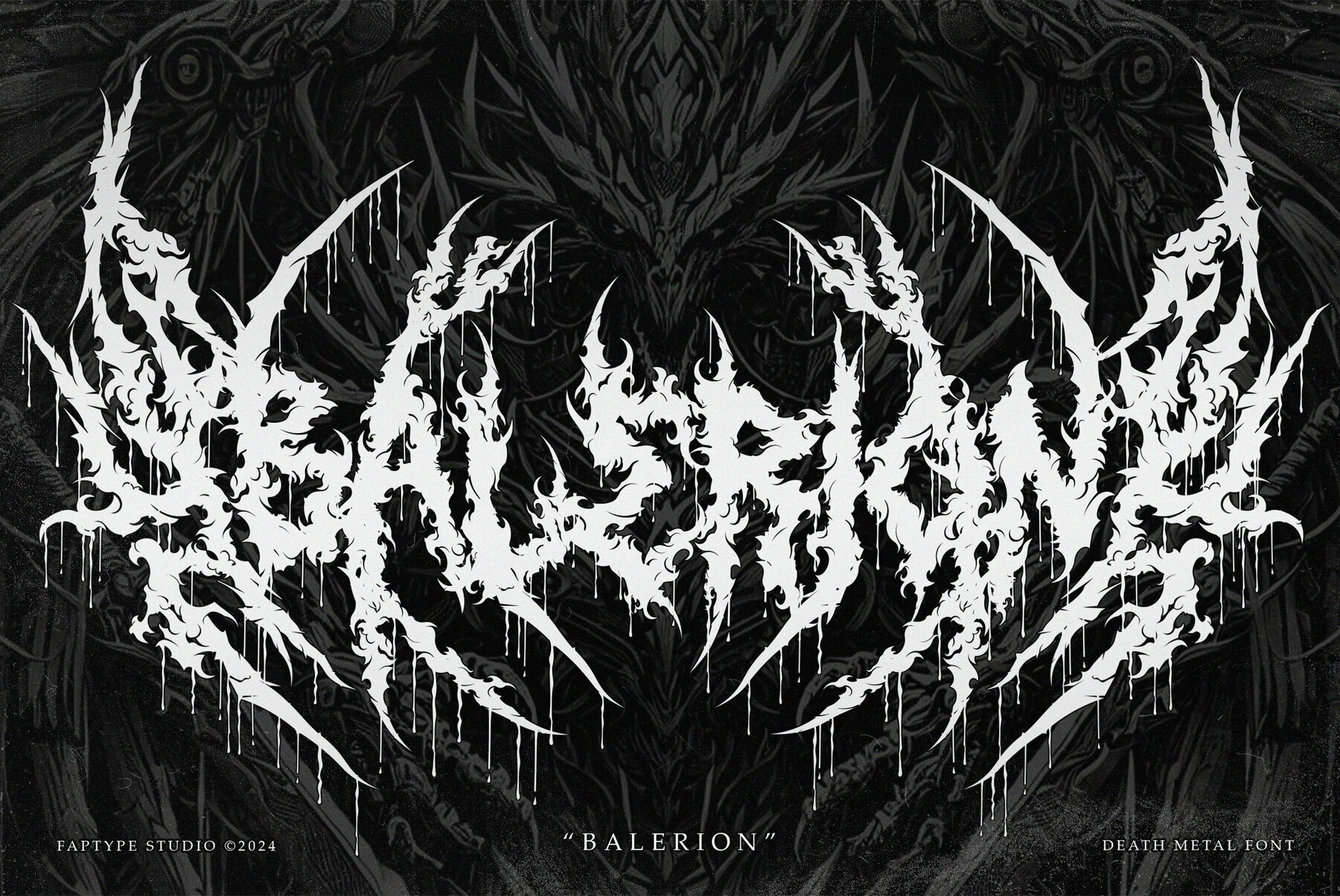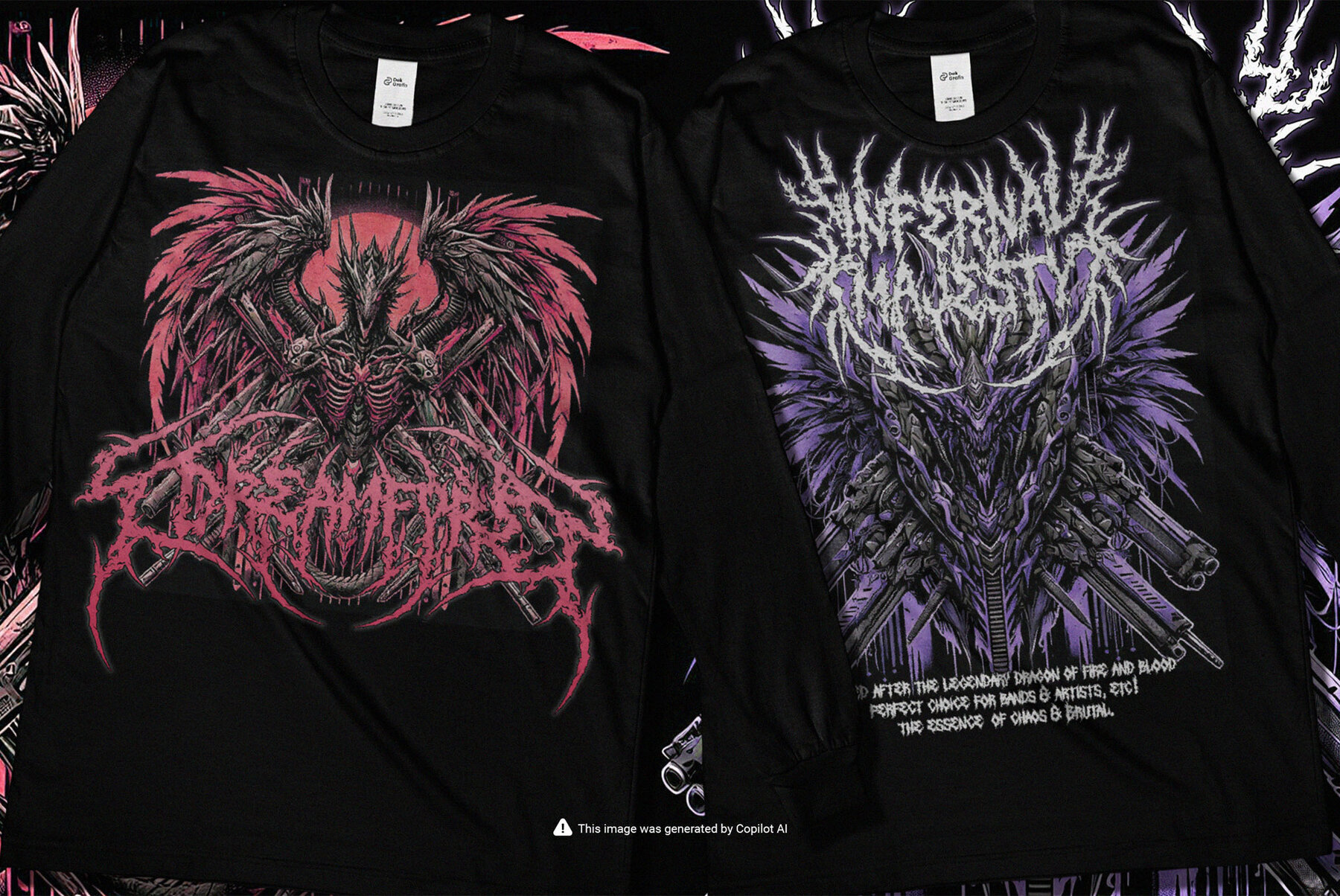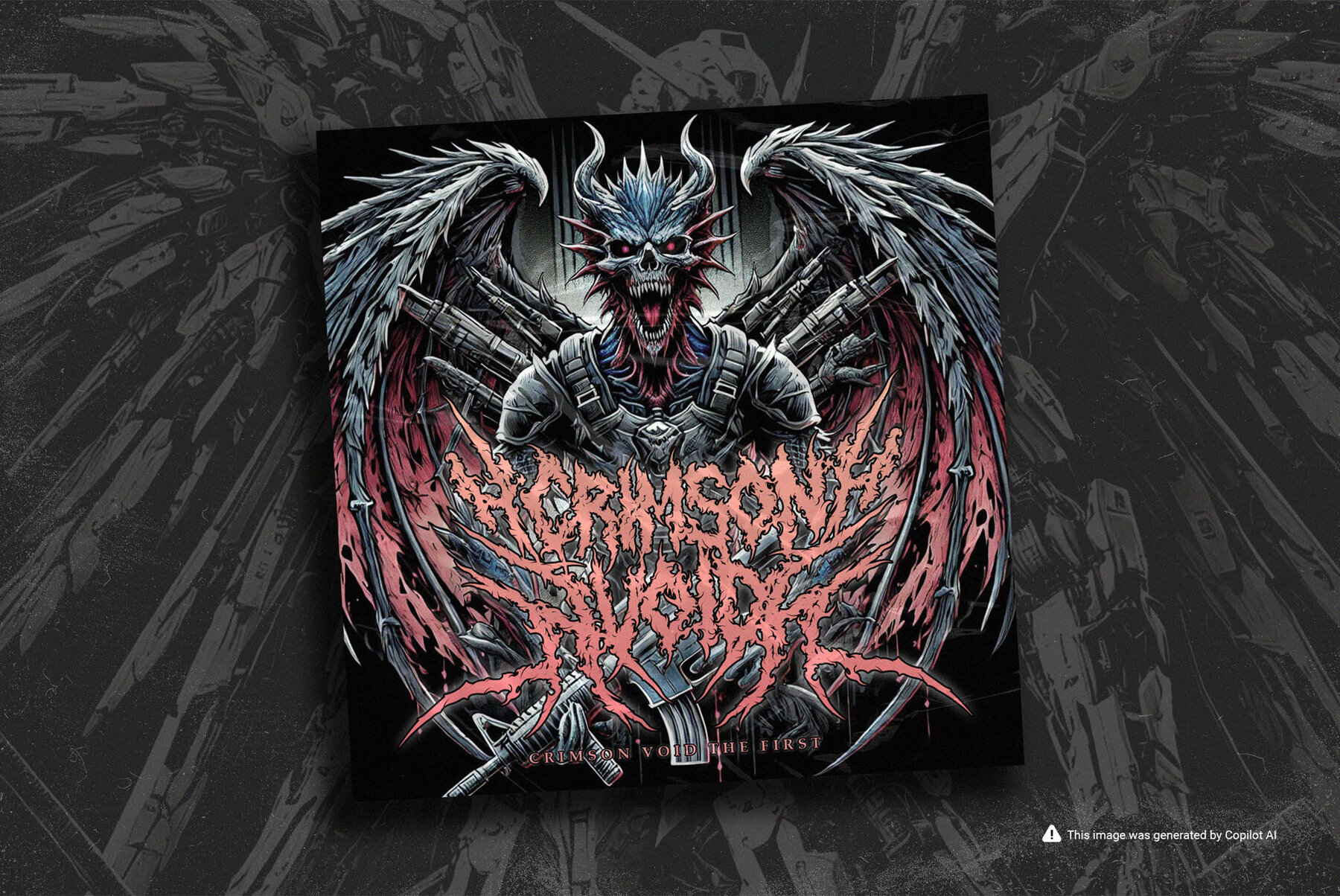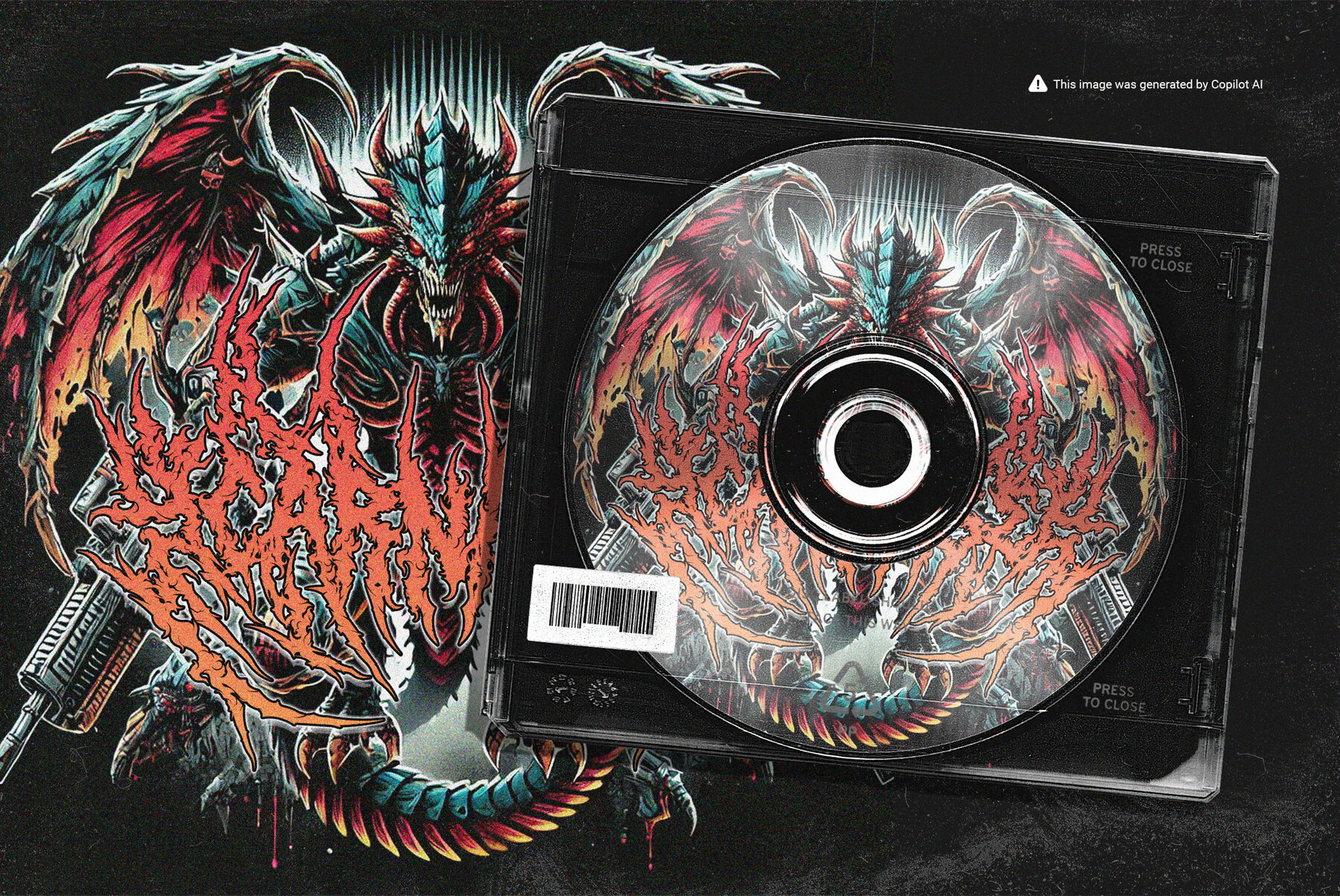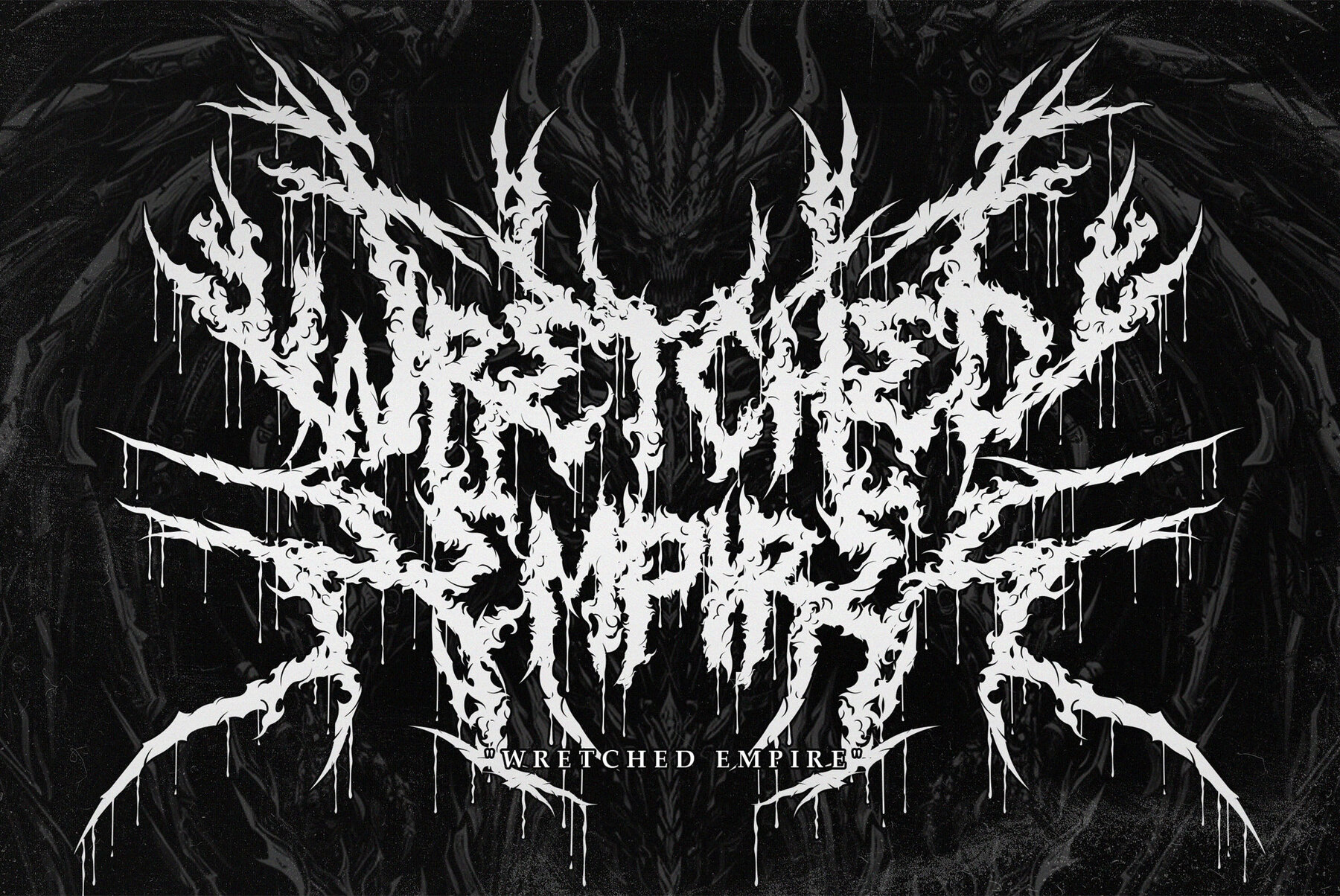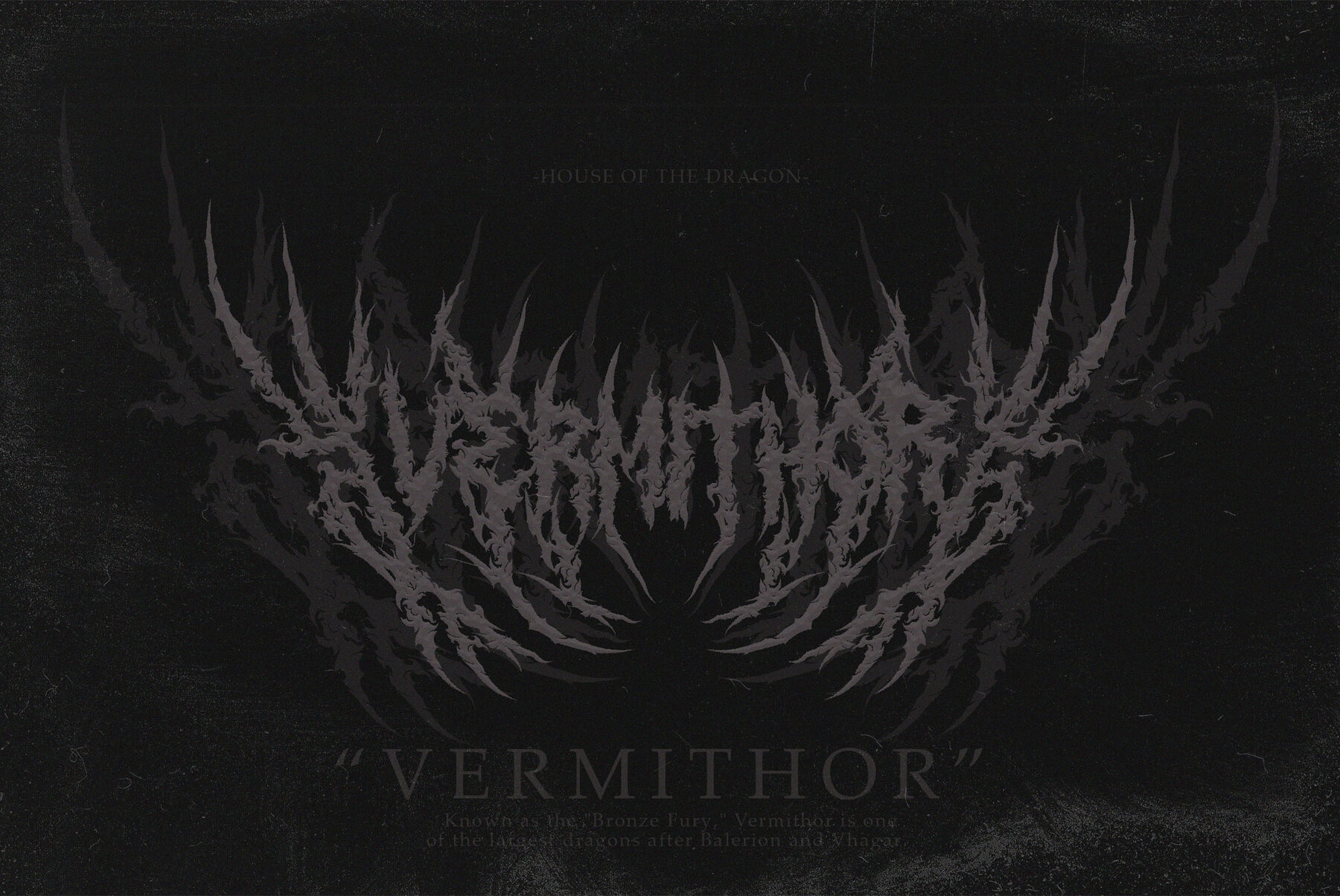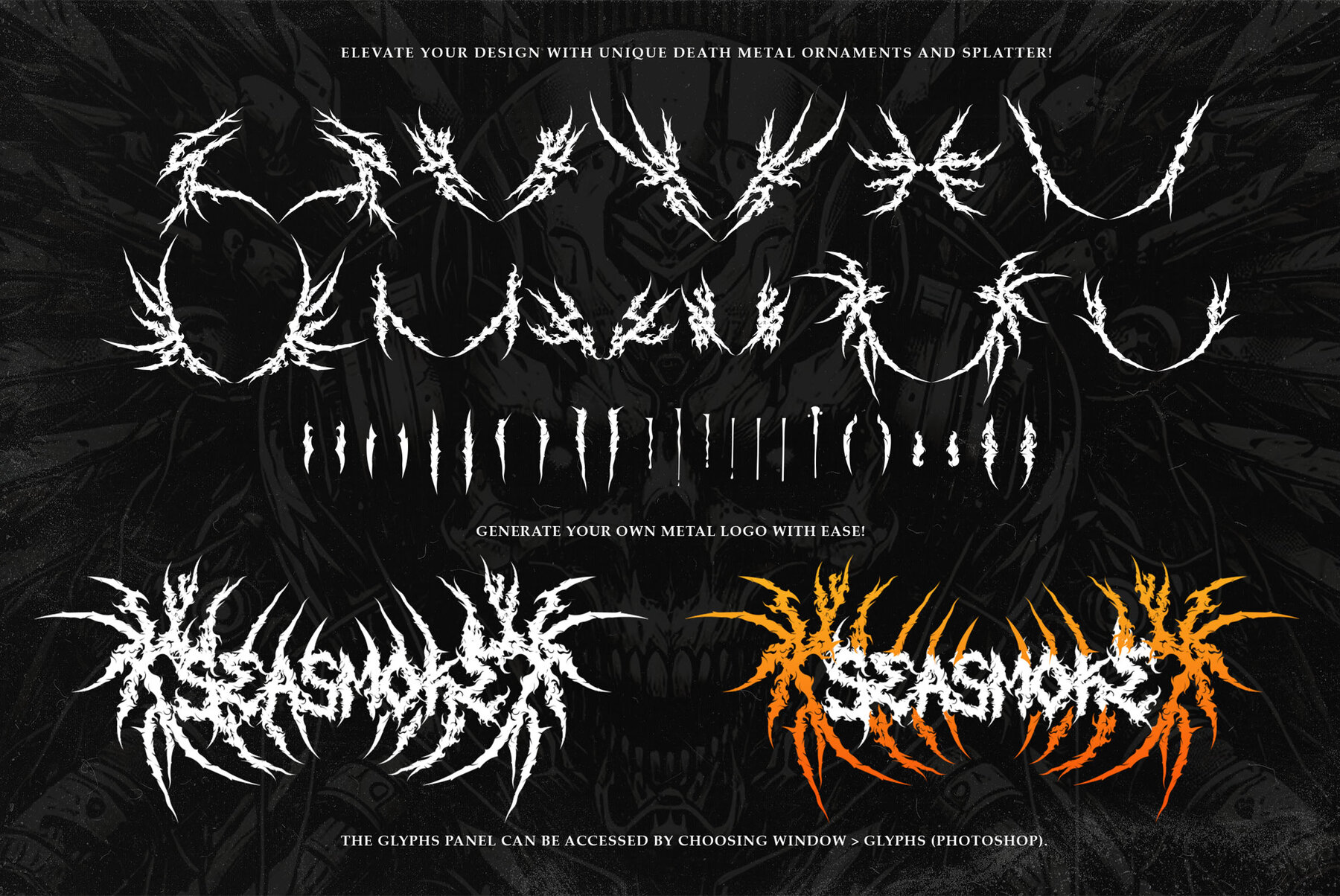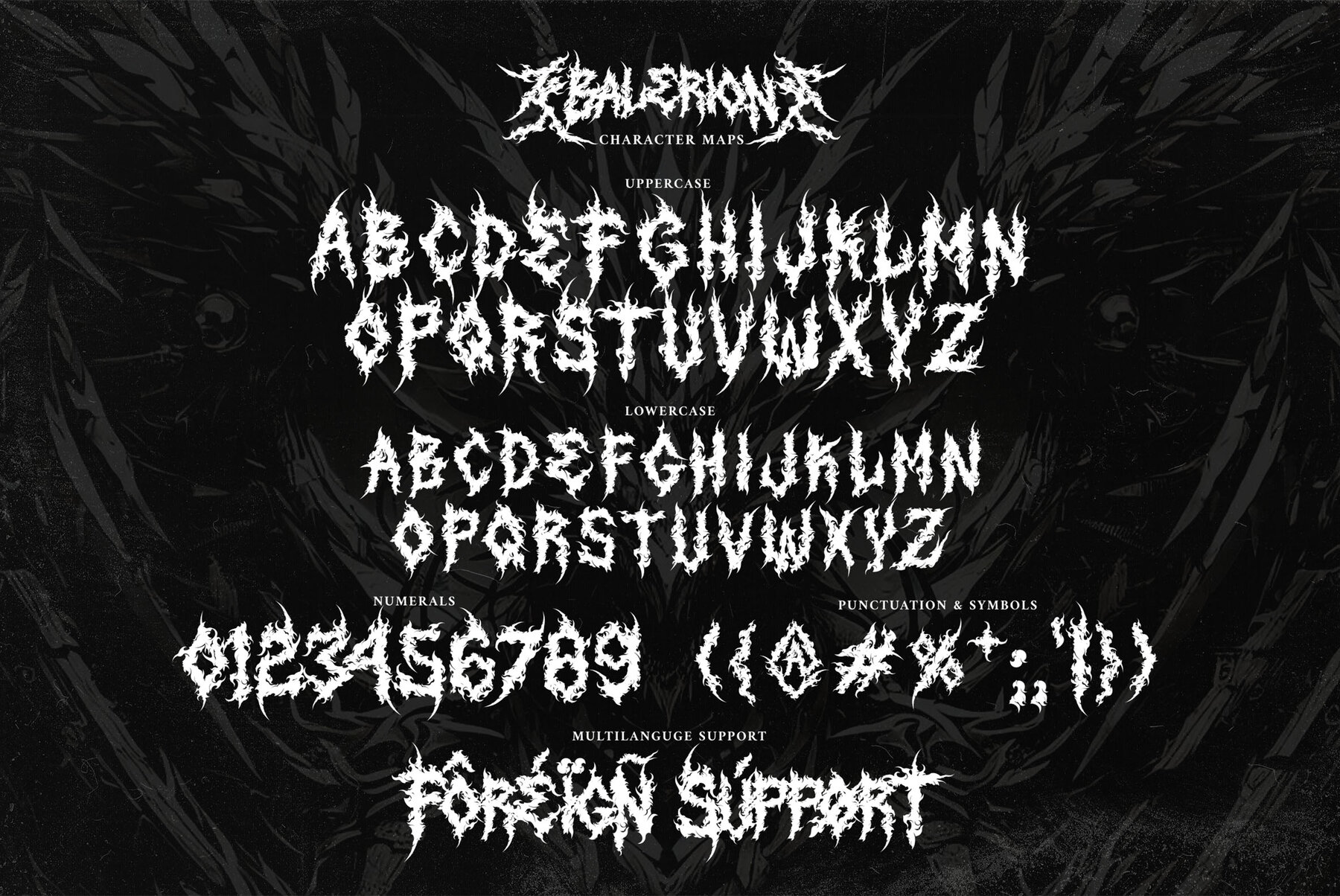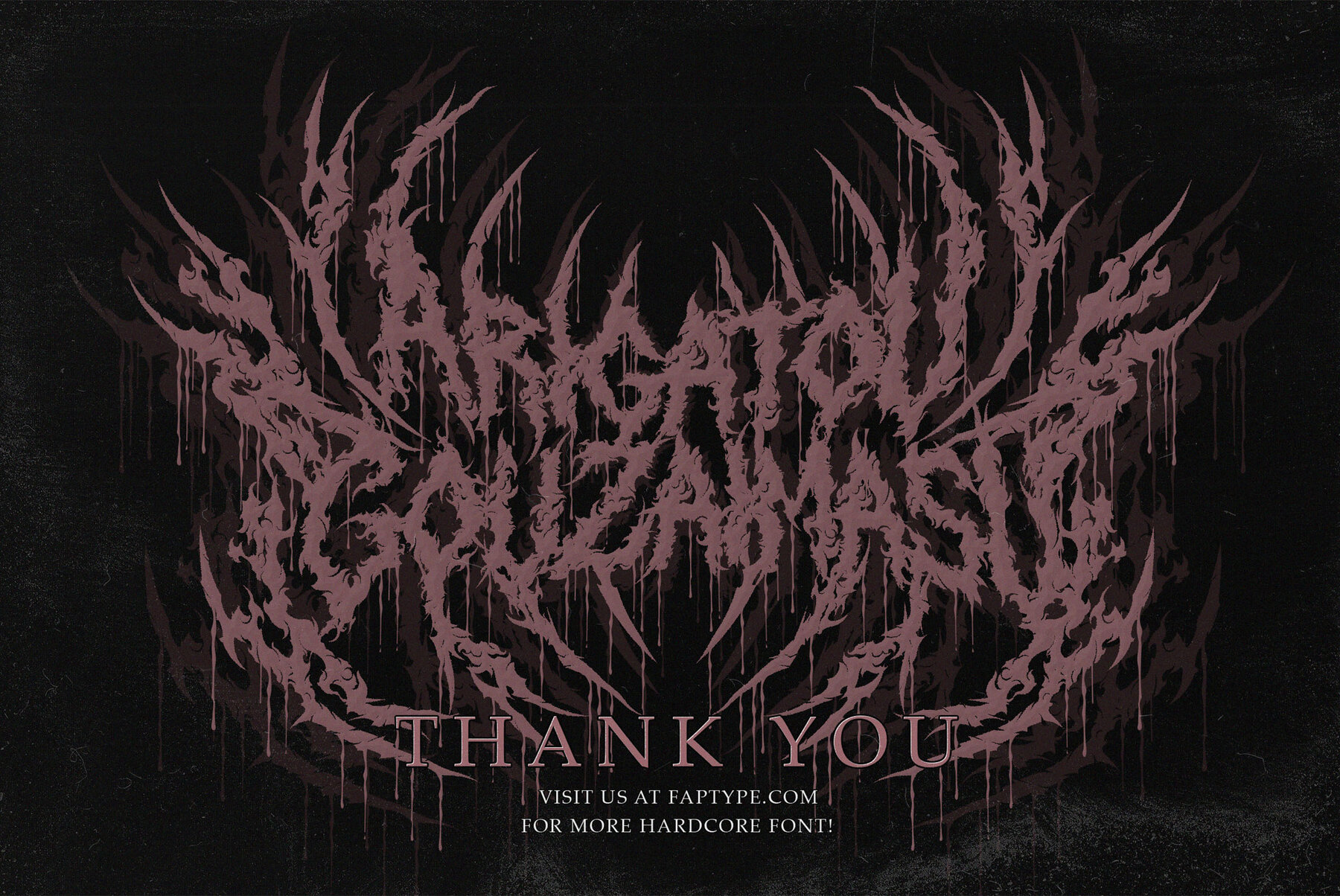
Prepare to unleash the unrelenting power of Balerion, our newest font creation inspired by the raw intensity and dark allure of death metal. Named after the legendary dragon of fire and blood, Balerion captures the essence of chaos, brutality, and grandeur, making it the perfect choice for bands, artists, and designers who dare to embrace the darkness. Every stroke of Balerion is crafted with precision to evoke the jagged edges of iron blades and the scorched textures of ancient ruins. This font’s intricate, aggressive detailing mirrors the relentless energy of death metal’s signature sound, making it impossible to ignore. With its sharp, interlocking forms and brutal aesthetics, Balerion demands attention on album covers, band merchandise, event posters, and more. Whether you're branding a festival of sonic destruction, designing killer apparel, or creating visuals for a dystopian masterpiece, Balerion ensures your message resonates with an untamed, primal force. The font supports a full range of characters, symbols, and multilingual options, so your art can conquer across any medium or language. Why Choose Balerion? Awaken the beast within your designs and channel the power of the Black Dread. With Balerion, your art won't just stand out—it will obliterate the competition. Unleash Balerion today and set your creativity ablaze. The dark realm awaits! Balerion features: